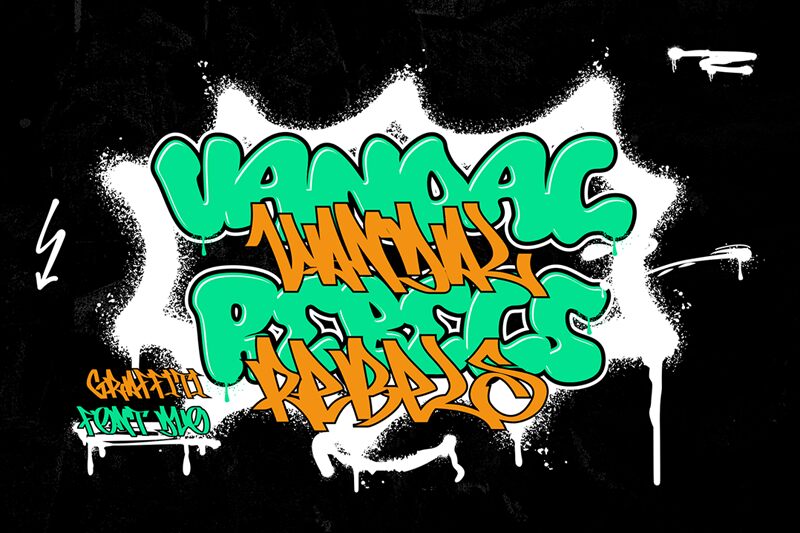
Vandal Rebels Monoline
Vandal Rebels Monoline font by Cikareotype Studio is a graffiti-inspired condensed font with an edgy urban appearance. Its energetic lettering and expressive design are rebellious and contemporary with a street art influence. Each character, joint or separate, demonstrates power and enthusiasm.
Energetic projects such as music album designs, book covers for younger readers or action movies will find in this free graffiti display font just what they're missing while social media posts, t-shirt designs, badges, packaging boxes of toys for older kids can also adequately be improved by it.